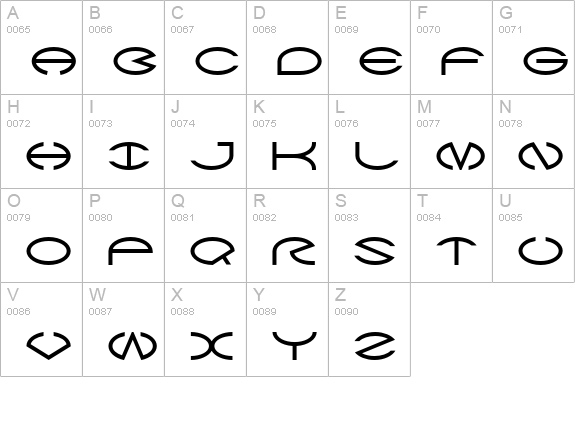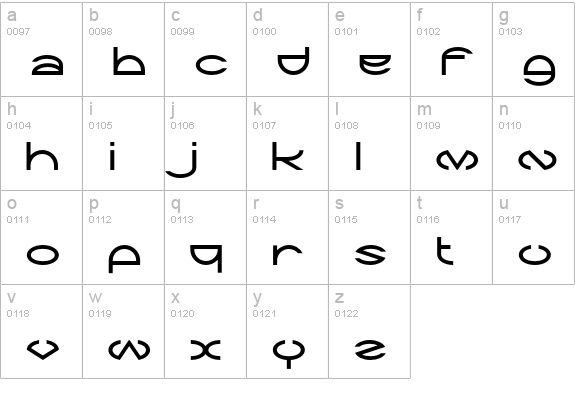
Zargon Font Details
Zargon is a sleek and modern font that exudes sophistication and style. Its clean lines and sharp angles make it perfect for a wide range of design projects, from logos to websites to print materials. With its versatile and contemporary look, Zargon is sure to make a statement wherever it is used. The best part? Zargon is completely free to download at FontsMarket.com! This means that you can add this stunning font to your collection without breaking the bank. Don't miss out on the opportunity to elevate your designs with Zargon - download it today and let your creativity soar.